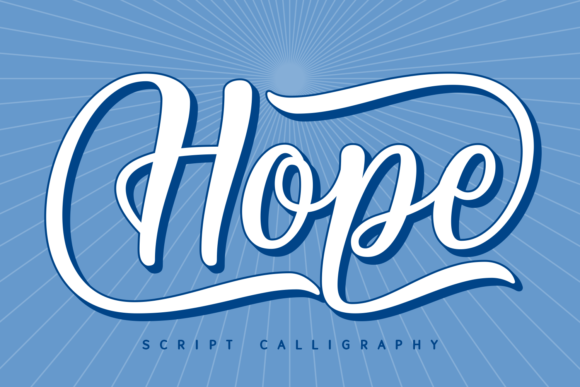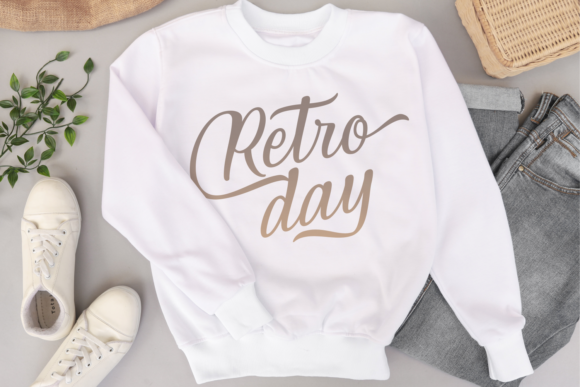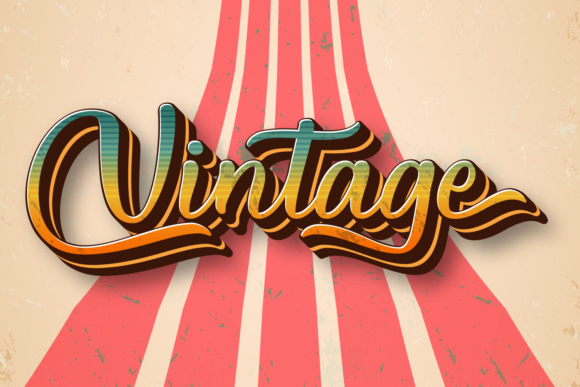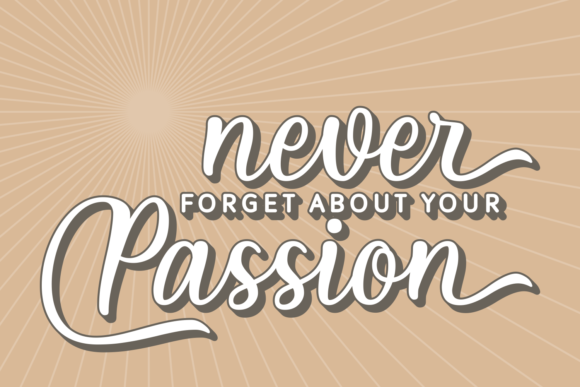
Unlocking the Power of Vintage Charm: Introducing Hope Font
Have you ever been brainstorming ideas for a new design project, only to find yourself stuck in a creative rut? You’ve got a clear vision in your mind, but can’t quite put your finger on the perfect font to bring it to life. That’s where Hope Font comes in – a beautiful, vintage script font that’s sure to add a touch of nostalgia and charm to your designs.
Perfect for everything from t-shirt designs and posters to birthday cards and wall art, Hope Font is a versatile and stylish addition to any creative project. Its elegant, handwritten feel makes it perfect for conveying a sense of hope, optimism, and joy – making it a valuable tool for designers looking to create truly special and memorable designs.
Hope Font Key Features
- Unique Characteristics: The Hope Font features a unique blend of modern and classic elements, making it suitable for a wide range of design applications, from corporate branding to editorial content.
Hope Font Review
As a designer, I’ve had the opportunity to work with many fonts, but the “Hope Font” is one that stands out. ✨ Its unique blend of elegance and approachability makes it a great choice for a wide range of projects.
Here are some of the things that I like about the Hope Font:
- ✨ Beautifully crafted letterforms that add a touch of sophistication to any design.
- ✨ Excellent legibility, even at smaller font sizes, making it perfect for body text or headlines.
- ✨ A wide range of language support, including many non-Latin scripts.
- ⚠️ Limited support for italic and bold weights, which may not be ideal for projects that require a lot of emphasis.
- ⚠️ Some users may find the font to be a bit too ornate, which could detract from the overall design.
Overall, I’m impressed with the Hope Font. It’s a great choice for designers who want to add a touch of elegance to their projects without sacrificing legibility. With a little creativity, the Hope Font can be used to create stunning designs that truly stand out.
Getting the Most Out of Hope Font
For the best results, use the Hope Font in conjunction with bold or italic styles to create visual emphasis.
Consider pairing the Hope Font with a contrasting background color to make your text stand out.
The Hope Font is ideal for:
Creating inspirational quotes and sayings
Designing social media posts and graphics
Developing brand identities and logos
Alternatives to Hope Font for Designers
Great Vibes Font is a modern, elegant script font that is perfect for adding a touch of sophistication to your designs. It is ideal for use in titles, headings, and other prominent text elements. Compared to Hope Font, Great Vibes Font has a more refined and polished look, making it suitable for high-end branding and marketing materials.
Carolyna Pro Font is a beautiful, handwritten font that is great for creating a personal and emotional connection with your audience. It is ideal for use in quotes, testimonials, and other text elements where you want to convey a sense of warmth and approachability. Compared to Hope Font, Carolyna Pro Font has a more fluid and expressive feel, making it perfect for use in creative and artistic projects.